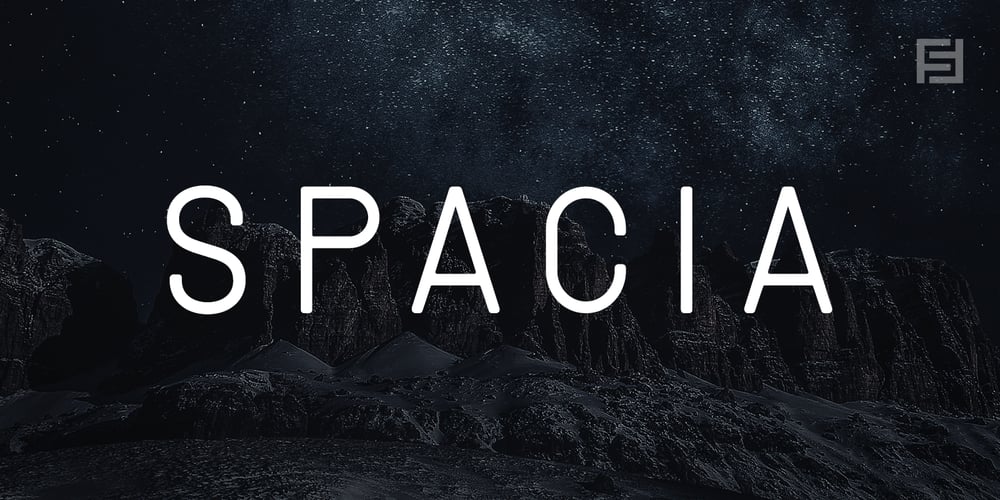
Spacia
Spacia font
Spacia Font Family was designed by Jean Johnson and published by Designova. Spacia contains 10 styles and family package options. Spacia is a unique & modern Sans-Serif typeface specially designed for headlines, big text, branding, logotypes & display usage. The typeface could be the perfect choice for logo/logotype design, branding, marketing graphics, banners, posters, signage, corporate identities as well as for editorial design that can bring freshness and professionalism.Please see the examples shown above to get an idea of the capability of this typeface.Handcrafted and designed with powerful OpenType features in mind, each weight includes extended language support including Western European & Central European sets.